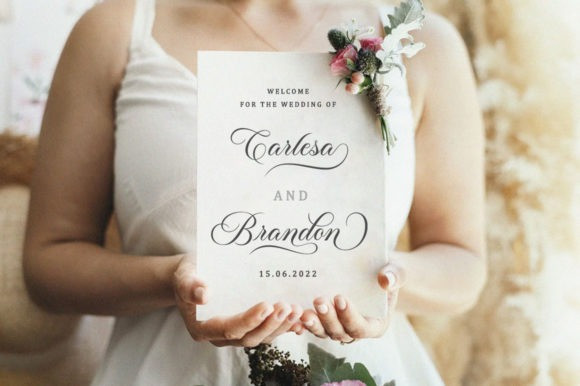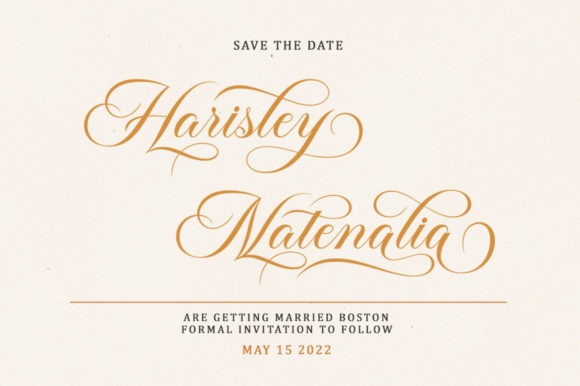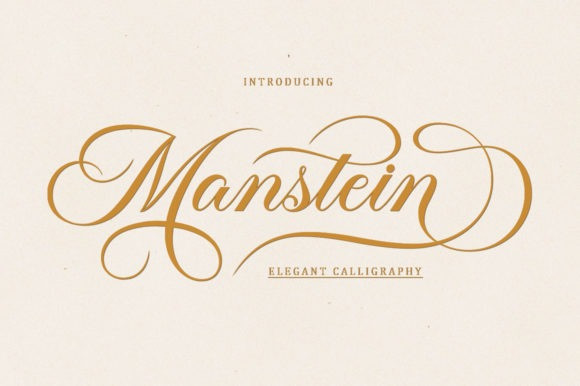
Manstein Font
Manstein Font is a stylish and slim script font. It is perfect for product packaging, branding project, magazine covers, social media, wedding, or just used to express words above the background.